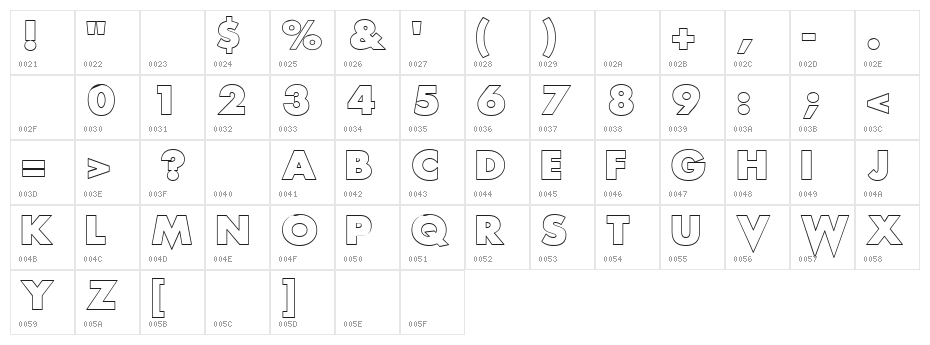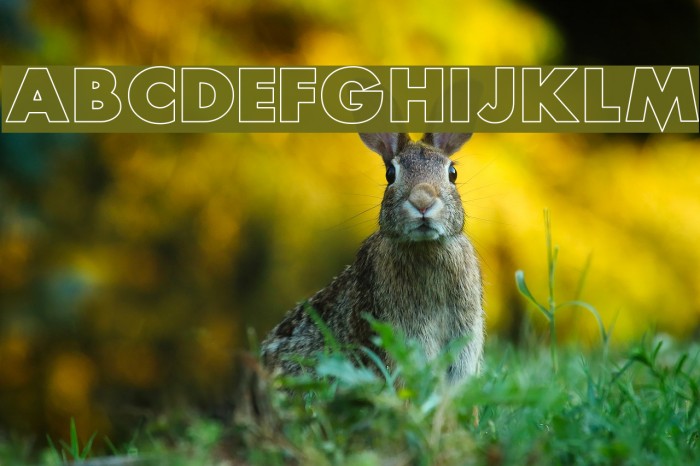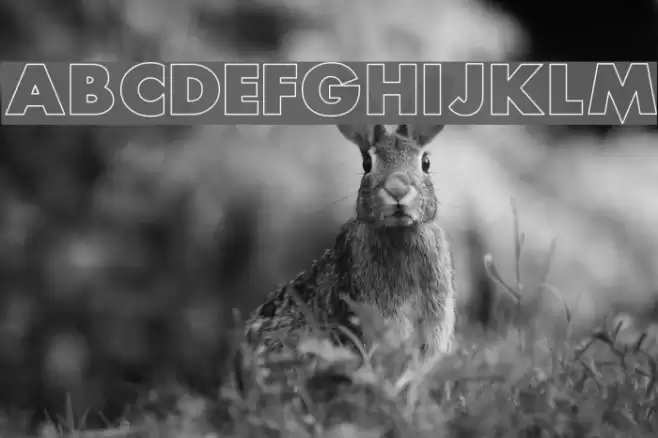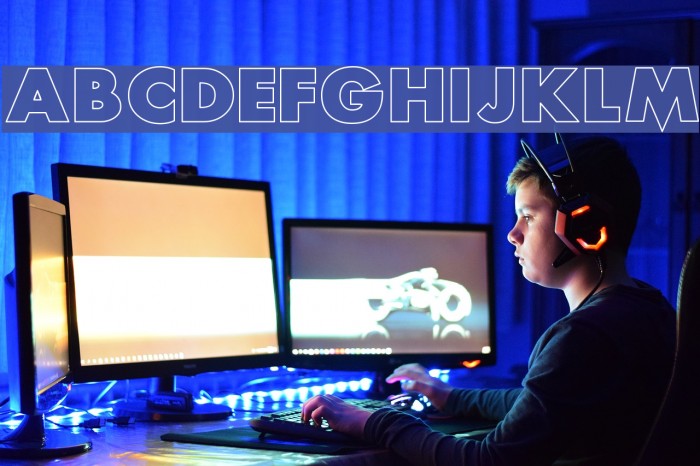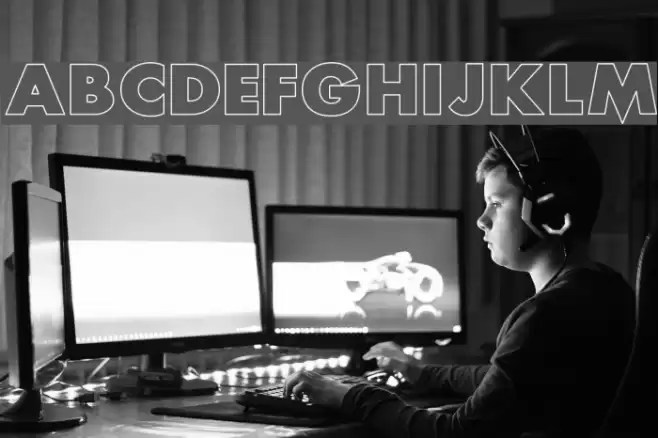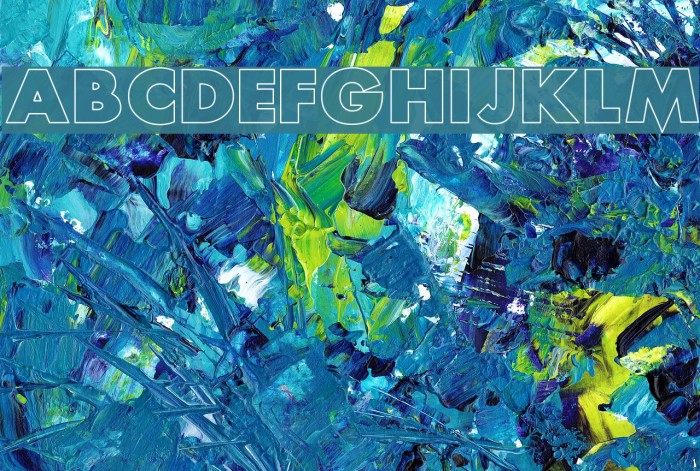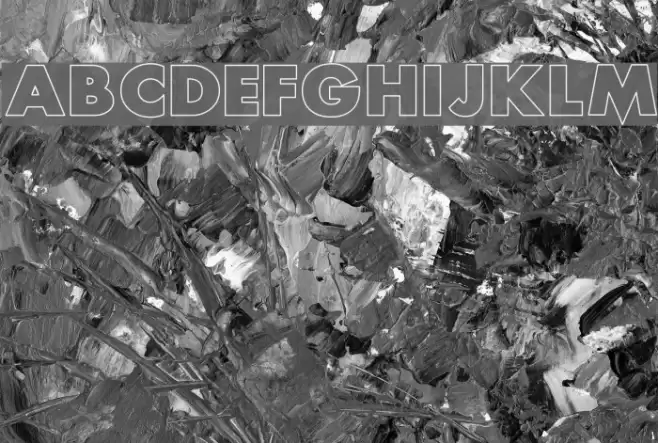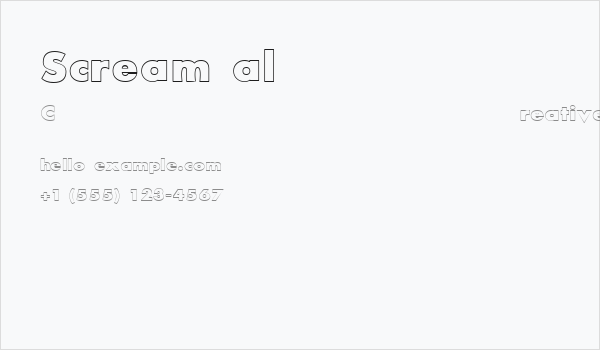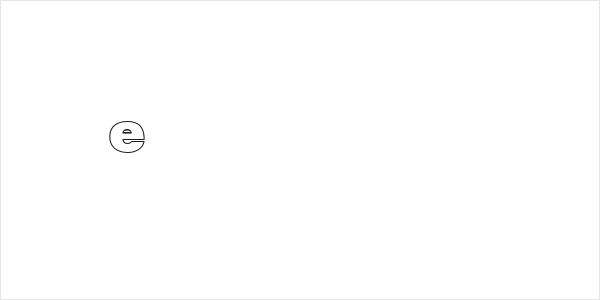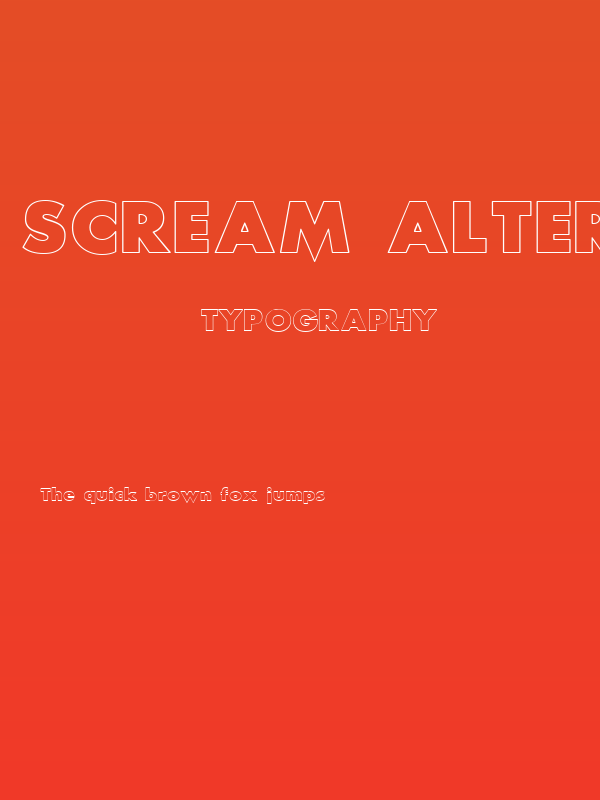
Scream alternative outlined Font
Scream alternative outlined Description
This font features a bold, outlined style with a modern and playful aesthetic. The uppercase letters are strong and geometric, while the lowercase letters maintain a consistent weight and structure. The numbers are equally bold, ensuring visibility and impact. Special characters are designed to match the overall style, providing a cohesive look across all glyphs. The font's outlined nature gives it a unique appearance, making it suitable for eye-catching designs. Its clean lines and uniform spacing contribute to its readability, even at smaller sizes.